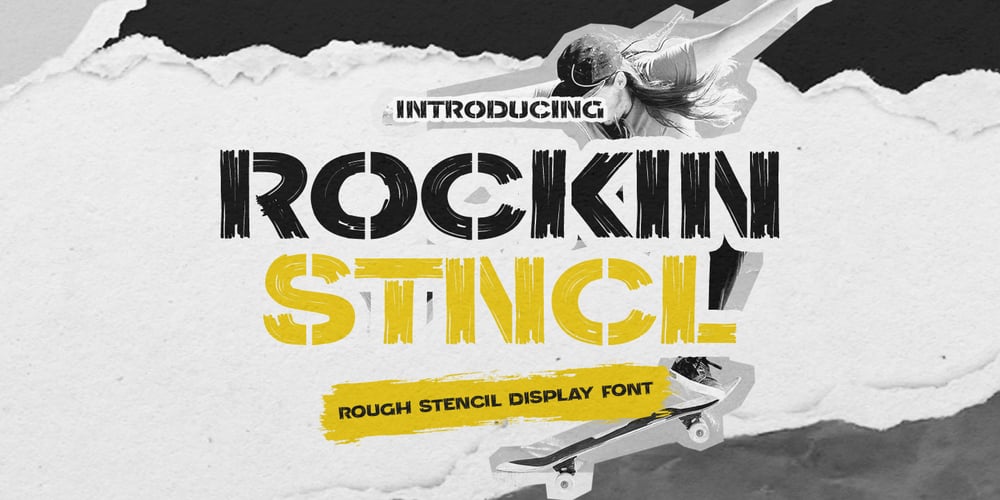
Rockin Stncl
Rockin Stncl font
Rockin Stncl Font Family was designed by Abdul Malik Wisnu, Anang Fibriyanto and published by Gassstype. Rockin Stncl contains 1 styles and family package options. Hello Everyone, introduce our new product Font Rockin Stncl This Is Rough Stencil Display Font.This is a Textured Natural Style and classy style with a clear style and dramatic movement.That is has charming, authentic and relaxed characteristic more natural look to your text.